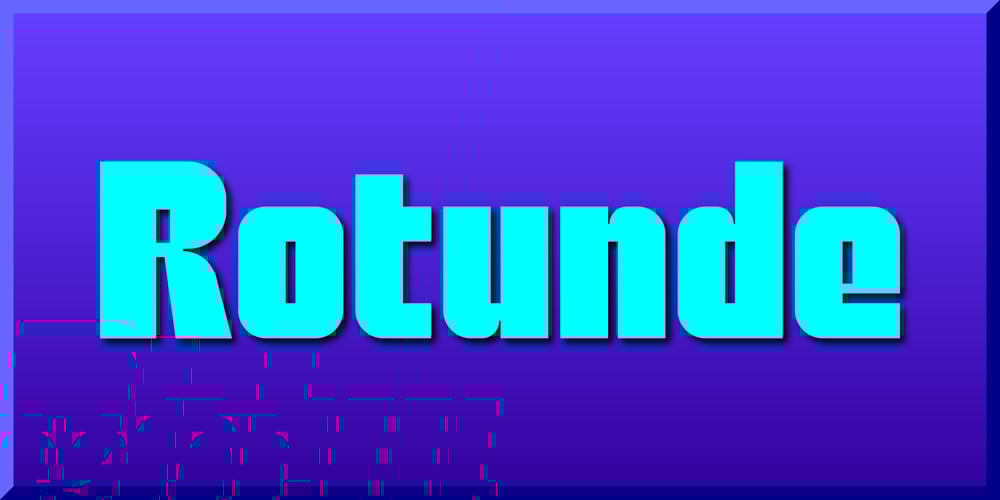
Rotunde Font Family was designed by Gerald Gallo and published by Gerald Gallo. Rotunde contains 1 styles and family package options. Rotunde is a very bold contemporary sans serif font. It is ideal for headlines, titles, branding, small blocks of text or wherever a fresh new look is desired.